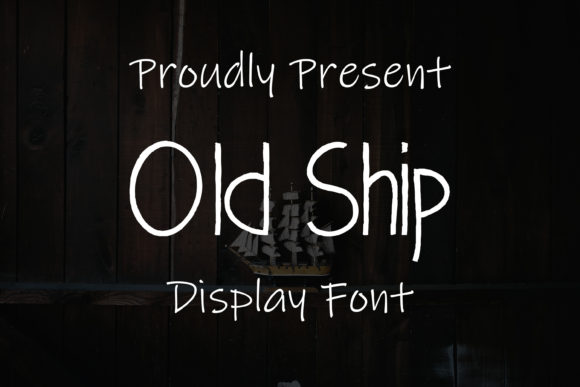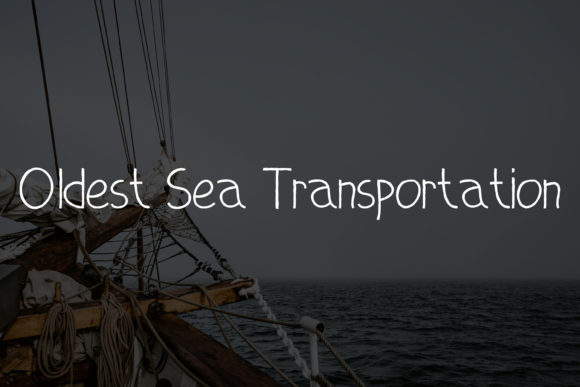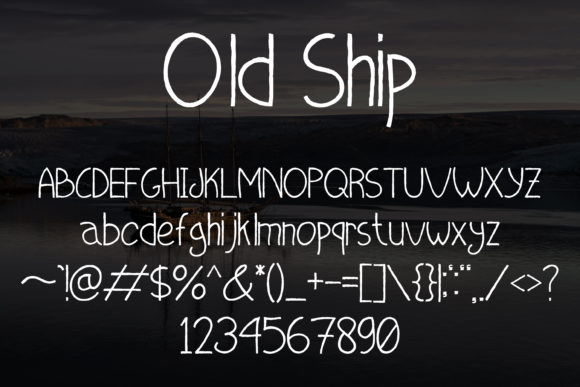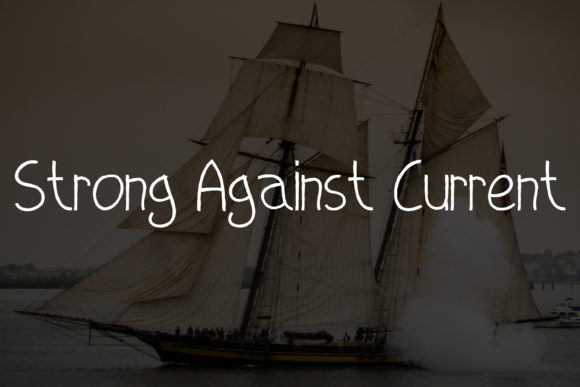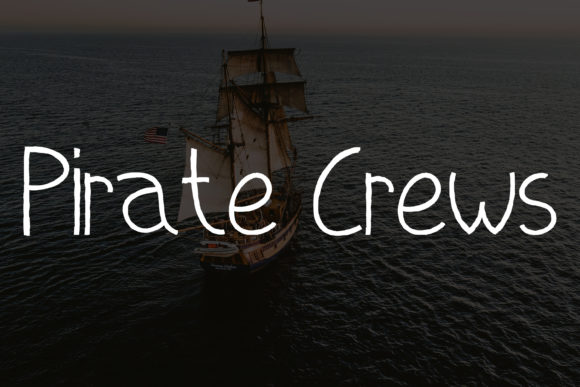
Old Ship Font
About Old Ship Font
Old Ship is a charming and authentic handwritten font that captures the essence of a classic chalkboard style. Its thin letterforms and slightly imperfect lines create a genuine and realistic feel, making it a perfect choice for chalkboard quotes, teaching materials, and more.
The handwritten look of Old Ship brings a personal and organic touch to your designs. Each letter has a unique and imperfect quality, mimicking the natural variations and quirks of hand-drawn typography. This adds a sense of warmth and personality, making your designs feel more approachable and relatable.
The thin lettering of Old Ship gives it an elegant and delicate appearance. It strikes a balance between being legible and having a refined, vintage aesthetic. The font’s thin strokes lend themselves well to chalk-like textures, giving the impression that the letters were gracefully sketched or written on a chalkboard.
Old Ship’s versatility allows it to be used in various contexts. It is particularly well-suited for chalkboard quotes, educational materials, signage, menu boards, and any design that requires a touch of nostalgic charm. Its handwritten look and feel create a sense of authenticity and nostalgia, making it a popular choice for those seeking a vintage or rustic style.
Whether you’re designing for a classroom, a café, or simply want to add a touch of whimsy to your projects, Old Ship is a font that will evoke a sense of nostalgia and add a personal and realistic feel to your designs. Its thin letterforms and handwritten aesthetic make it an ideal choice for chalkboard quotes and teaching materials, allowing you to create designs that are both visually appealing and relatable.
So, if you’re looking to bring a touch of authenticity and charm to your designs, consider using Old Ship. Its handwritten look and thin lettering will transport your audience to a chalkboard setting, creating a personal and nostalgic experience.